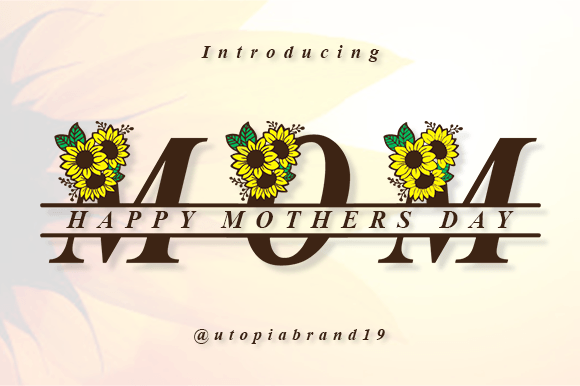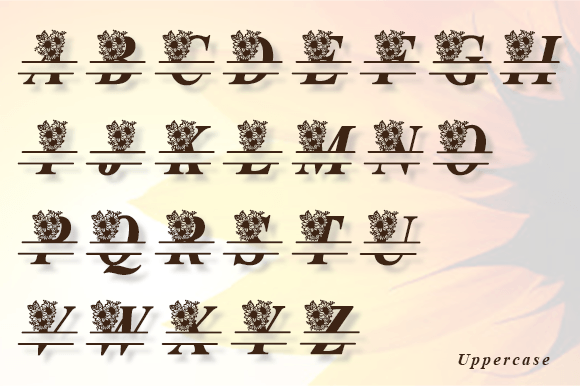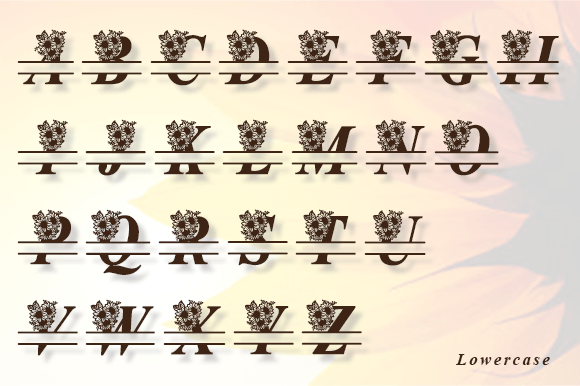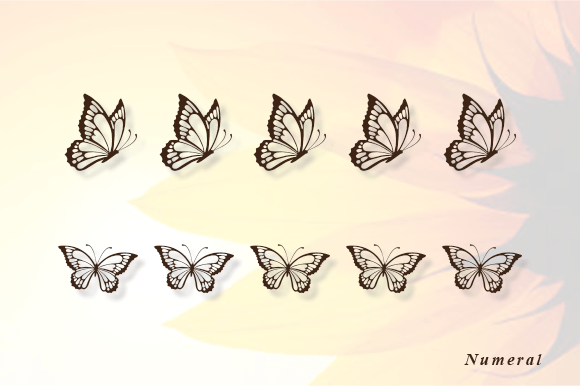
Mom Day Monogram Font
About the Mom Day Monogram Font
Meet Mom Day Monogram Font, a stunning font that brings a touch of elegance and professionalism to any design. Mom Day is a charming decorative font. Fall in love with its authentic feel and use it to create gorgeous wedding invitations, beautiful stationary art, eye-catching social media posts, and cute greeting cards.
Mom Day’s decorative style shines in headlines, short text blocks, and branding applications where a touch of handcrafted charm is desired. It excels on wedding invitations, social media graphics, and short-form marketing materials. However, its ornate nature makes it unsuitable for body text or UI elements requiring high legibility. Avoid using it for large quantities of text.
Its friendly and slightly whimsical personality pairs well with clean sans-serif fonts like Open Sans or Lato for balance. For a more elegant feel, consider pairing it with a classic serif like Garamond or a delicate script font like Great Vibes. The contrast creates visual interest without overwhelming the design.
The overall aesthetic leans towards feminine and celebratory, making it ideal for brands focused on events, celebrations, or products with a handmade or vintage feel. Avoid using Mom Day for projects requiring a modern, minimalist, or serious tone.